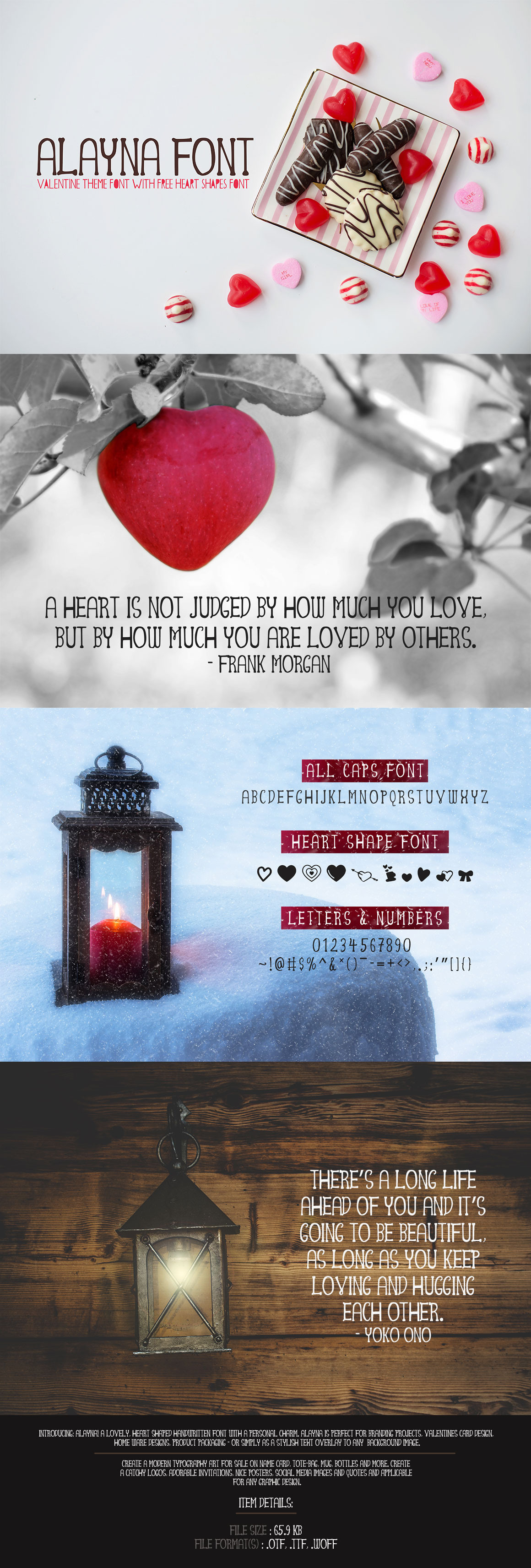
Alayna Valentines Love Font
Introducing: Alayna! A lovely, heart shaped handwritten font with a personal charm. Alayna is perfect for branding projects, valentines card design, home ware designs, product packaging - or simply as a stylish text overlay to any background image.
Create a modern typography art for sale on name card, tote-bag, mug, bottles and more. Create a catchy logo, adorable invitations, nice posters, social media images and quotes and applicable for any graphic design.
- Added Heart Shapes